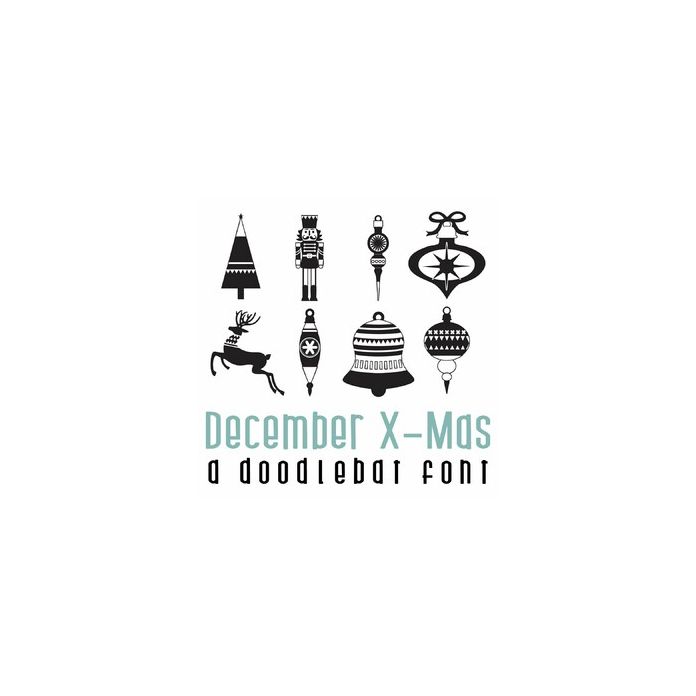
This fun doodlebat font features 26 retro styled Christmas imagery. Perfect for cards, gifts, decor, crafts, scrap book pages, planner stickers and more!